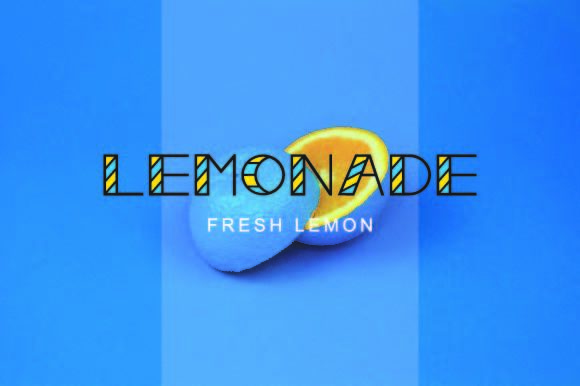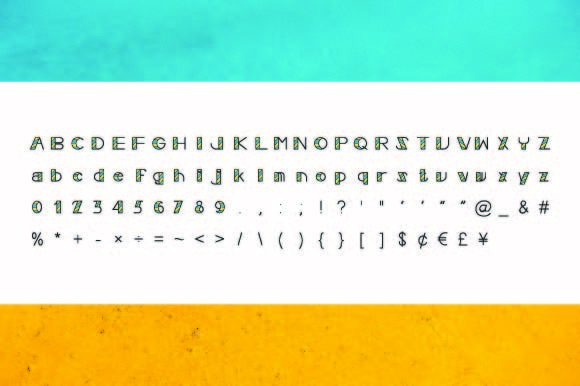
Introducing Barlin Colored Font: The Ultimate Summer Sans Serif
Are you tired of using the same old fonts for your design projects? Look no further! Barlin Colored is a refreshing sans serif font that is sure to capture your heart with its unique feel and cool vibe. In this article, we’ll dive into the world of Barlin Colored and explore its features, benefits, and uses.
What is Barlin Colored Font?
Barlin Colored is a light and summery sans serif font that is perfect for designers and crafters looking for a fresh and modern look. Its clean lines, simple shapes, and vibrant colors make it an ideal choice for a wide range of design projects, from branding and advertising to packaging and digital media.
Unique Features of Barlin Colored Font
So, what sets Barlin Colored apart from other fonts? Here are some of its unique features:
- Light and airy feel: Barlin Colored has a light and airy feel that makes it perfect for summer-inspired designs.
- Unique color palette: The font comes with a range of vibrant colors that can be used to add a pop of color to your designs.
- Clean lines and simple shapes: The font’s clean lines and simple shapes make it easy to read and versatile for various design applications.
- Sans serif design: The sans serif design of Barlin Colored gives it a modern and sleek look that’s perfect for contemporary designs.
Benefits of Using Barlin Colored Font
So, why should you use Barlin Colored for your design projects? Here are some benefits:
- Adds a touch of summer to your designs: Barlin Colored is perfect for summer-inspired designs, from beachwear branding to summer festival posters.
- Versatile and adaptable: The font’s clean lines and simple shapes make it adaptable to various design applications, from digital media to print materials.
- Easy to read: The font’s clear and simple design makes it easy to read, even at small sizes.
- Unique and creative: Barlin Colored’s unique color palette and design make it a great choice for designers looking to stand out from the crowd.
Using Barlin Colored Font for Design Projects
So, how can you use Barlin Colored for your design projects? Here are some ideas:
- Branding and advertising: Use Barlin Colored to create eye-catching branding and advertising materials, such as logos, posters, and flyers.
- Packaging design: The font’s clean lines and simple shapes make it perfect for packaging design, from product labels to packaging inserts.
- Digital media: Use Barlin Colored to create engaging digital media, such as social media graphics, blog posts, and email newsletters.
- Crafting and DIY projects: Barlin Colored is also perfect for crafters and DIY enthusiasts, from making custom signs to creating handmade cards.
Tips for Getting the Most Out of Barlin Colored Font
Here are some tips for getting the most out of Barlin Colored:
- Experiment with colors: Barlin Colored comes with a range of vibrant colors, so don’t be afraid to experiment and find the perfect color combination for your design.
- Mix and match with other fonts: Barlin Colored pairs well with other sans serif fonts, so feel free to mix and match to create a unique look.
- Use it for headlines and titles: The font’s bold and vibrant design makes it perfect for headlines and titles.
In conclusion, Barlin Colored is a unique and refreshing sans serif font that’s perfect for designers and crafters looking for a cool and summery vibe. With its light and airy feel, unique color palette, and clean lines, Barlin Colored is sure to capture your heart and add a touch of summer to your designs.